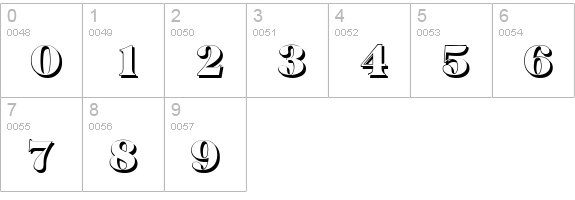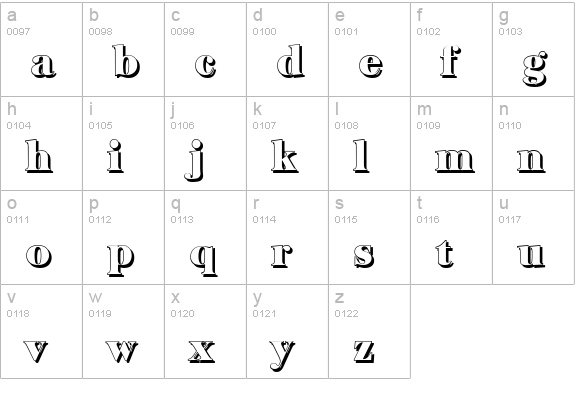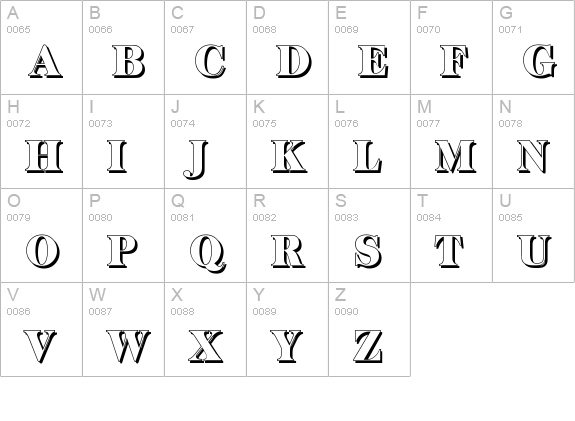
BaskervilleShadow-Black-Regular is a maximum-weight, dramatic variant in the BaskervilleShadow typeface family \xE2\x80\x94 well suited to maximum-impact headlines, posters, and packaging.
BaskervilleShadow-Black-Regular is a striking and elegant font that exudes a sense of sophistication and timeless charm. Its bold and shadowed design makes a powerful statement, perfect for adding a touch of drama to any project. This font is versatile and can be used for a variety of purposes, from branding to editorial design. The best part? BaskervilleShadow-Black-Regular is available for free download at FontsMarket.com. This means you can easily access this stunning font and incorporate it into your designs without any cost. Don't miss out on the opportunity to elevate your projects with this unique and eye-catching typeface. Download BaskervilleShadow-Black-Regular today and let your creativity shine!